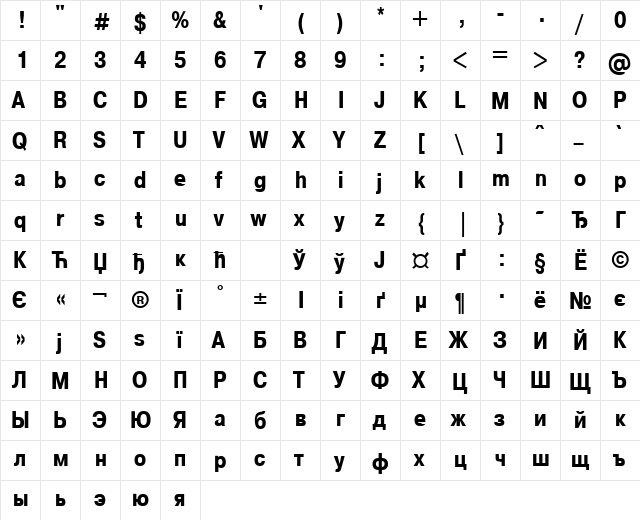
PragmaticaCondC Bold Font Preview
Design Context for PragmaticaCondC Typeface
PragmaticaCondC takes a measured approach to typography — its balanced proportions and neutral character make it a reliable workhorse for both digital and print work. The heavy weight commands attention and anchors typographic hierarchies. Its narrow stance lets it pack a punch even in space-constrained designs.